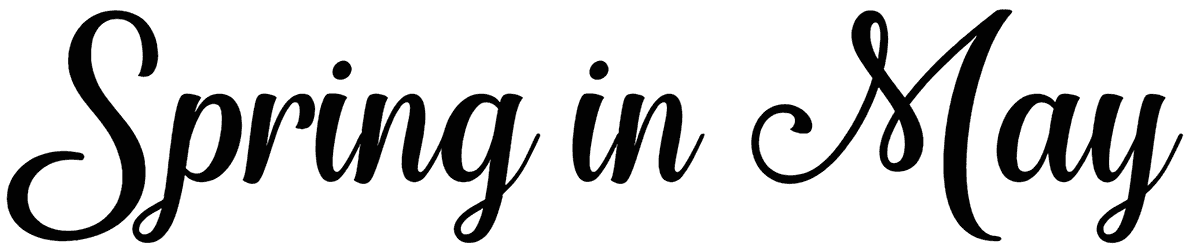
Spring in May Font
As the name implies, this calligraphy font evokes a sense of vitality, joy, and a new beginning. Spring in May with curly letterforms comes across as turning any words into a romantic and dramatic state-of-the-art. This…
As the name implies, this calligraphy font evokes a sense of vitality, joy, and a new beginning. Spring in May with curly letterforms comes across as turning any words into a romantic and dramatic state-of-the-art. This script font can be a savior to pull your graphics, posters, cards, and packaging design out of the tedium and make it engaging to any eye.
Spring in May is a stunning calligraphy typeface. Its elegant design makes a perfect choice for wedding invitations, lovely greeting cards and any project that requires a fancy touch.